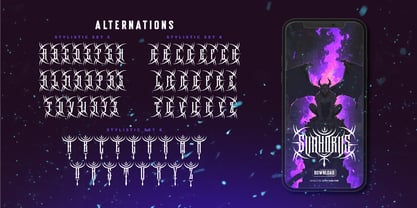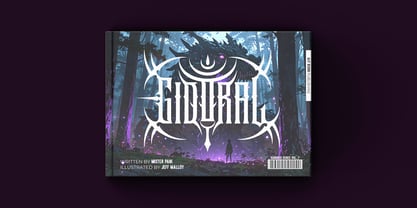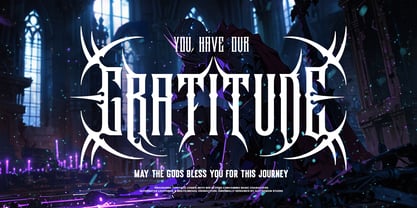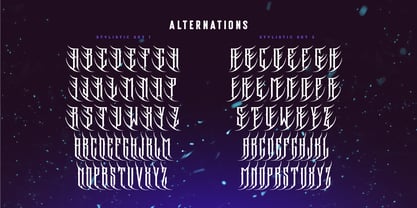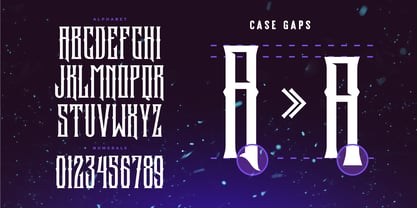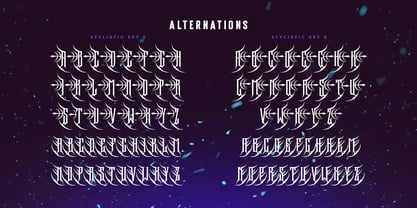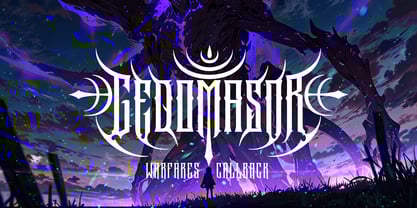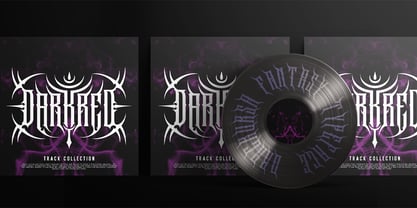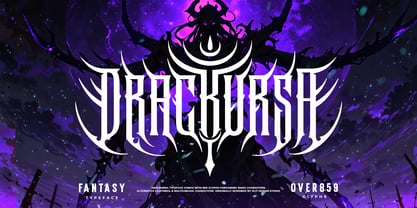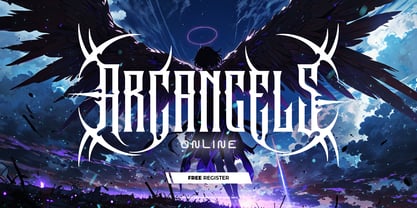
Drackursa
by Alit Design
The Drackursa Font Family was designed by Alit Suarnegara and published by Alit Design. Drackursa contains 1 styles.
Drackursa Typeface
Drackursa Typeface is a bold and intense font inspired by the dark, visceral aesthetic of modern death metal. Every letter is sculpted with sharp, thorn-like edges and menacing curves that resemble the horns of a demonic creature. Its aggressive design evokes power, chaos, and a raw, unrelenting energy.
This typeface perfectly captures the essence of the death metal genre, blending ferocity with intricate details. Each character is an embodiment of malevolence, featuring jagged spikes and sinuous forms that seem to pierce through the fabric of order.
Drackursa is ideal for album covers, band logos, gig posters, or any creative work demanding a commanding, fearsome presence. Its modern yet arcane vibe makes it a must-have for projects steeped in darkness, rebellion, and anarchy.
Features:
• Sharp, thorn-like edges and horned designs for every character.
• High detail with a modern, gothic death metal aesthetic.
• Suitable for large-scale, eye-catching displays.
Unleash the fury of Drackursa Typeface and let its wicked thorns tear through the mundane!